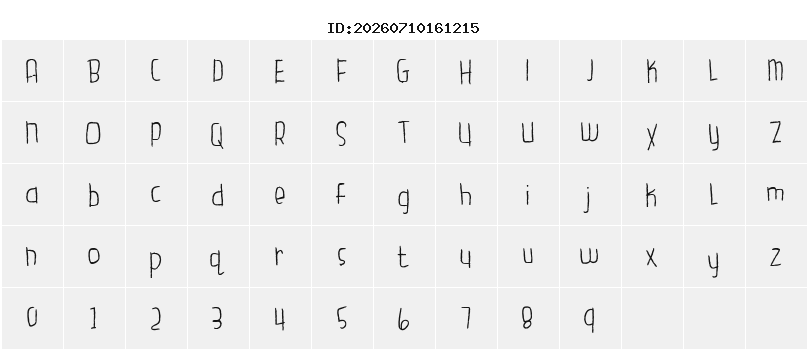
garden fresh tomatoes Preview
• Font Name: garden fresh tomatoes
• Font ID: BrittneyMurphy: garden fresh tomatoes: 2013
• Full Font Name: garden fresh tomatoes
• PostScript Name: gardenfreshtomatoes
• Designer: Brittney Murphy
• Manufacturer: Brittney Murphy
About garden fresh tomatoes.ttf
garden fresh tomatoes.ttf is a modern, elegant sans-serif font designed for ultimate readability and visual harmony. Perfect for branding, headlines, web design, and print materials.